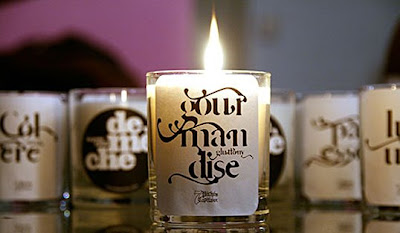
I just saw these candles inspired by the seven deadly sins on Death by Kerning. They're made by Cannes-based company Demèche. I'm not sure how I feel about the labels (they look a little slapped on to me), but I'm loving the type treatment. It has a real vintage calligraphy feel, updated with open spaces and elegant flourishes that do really remind me of flickering candle flames.